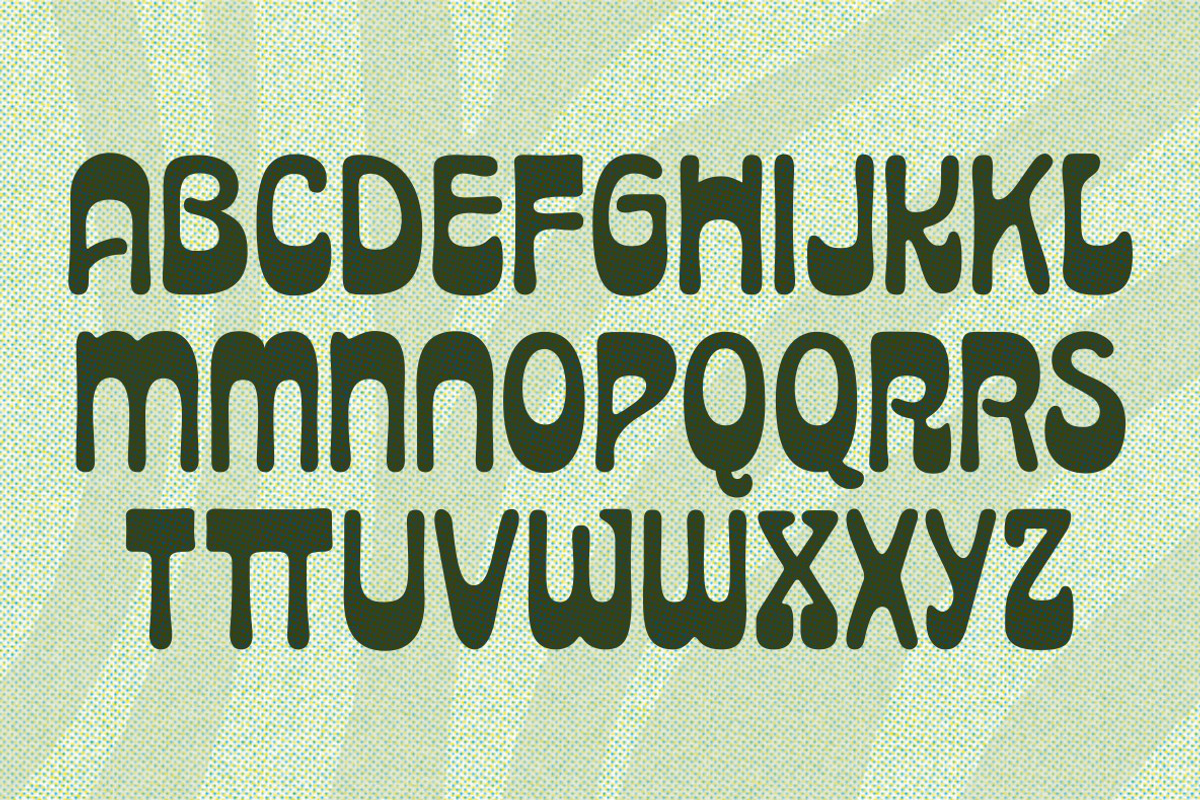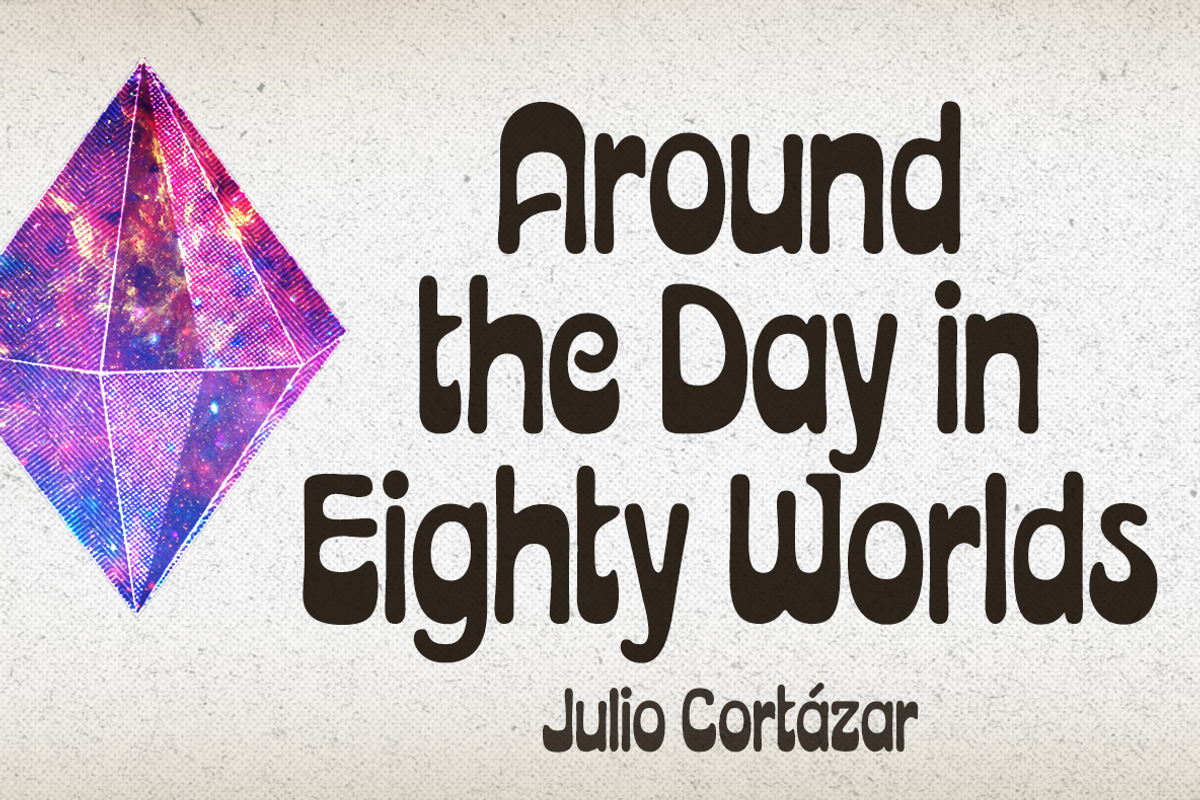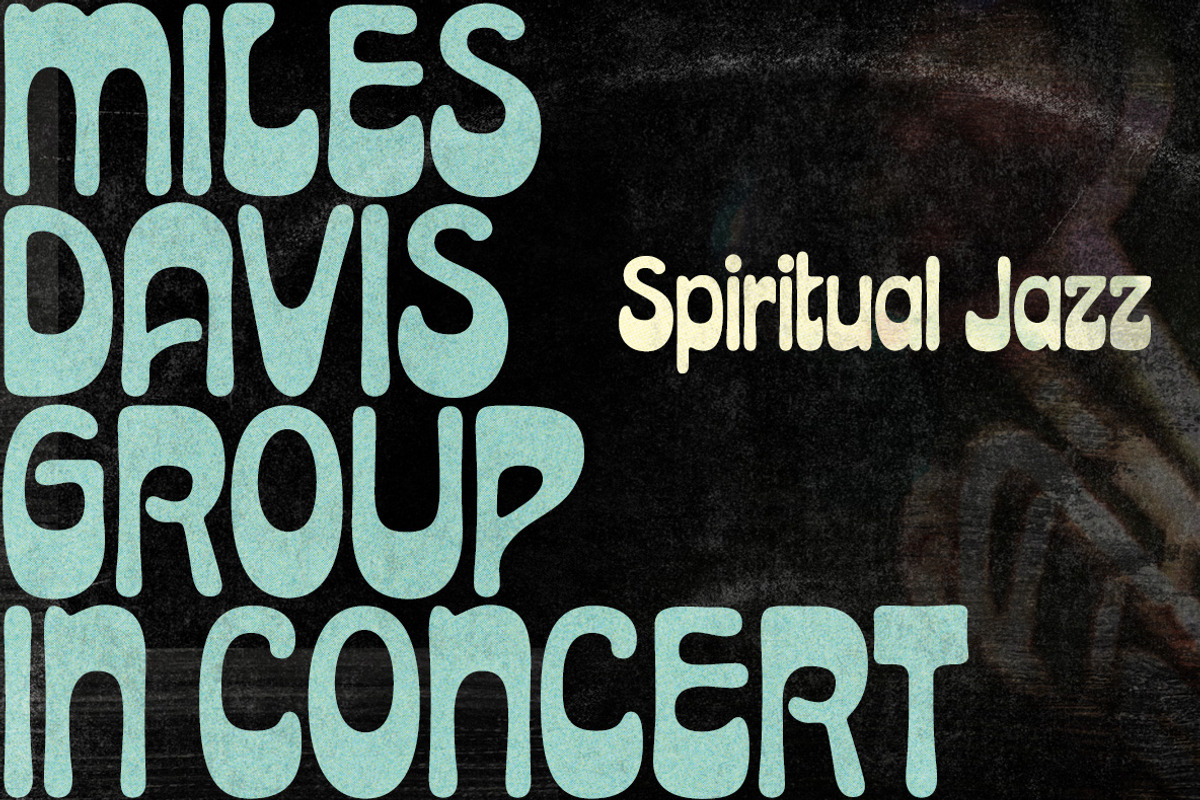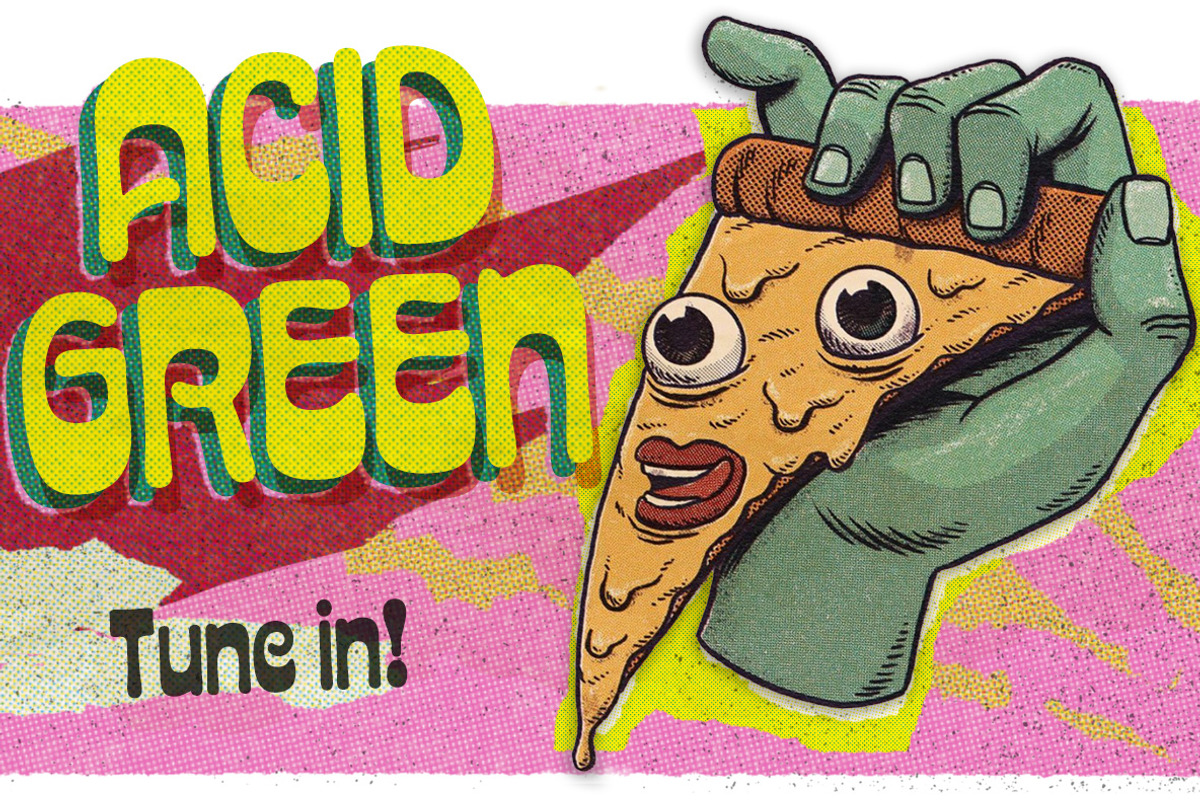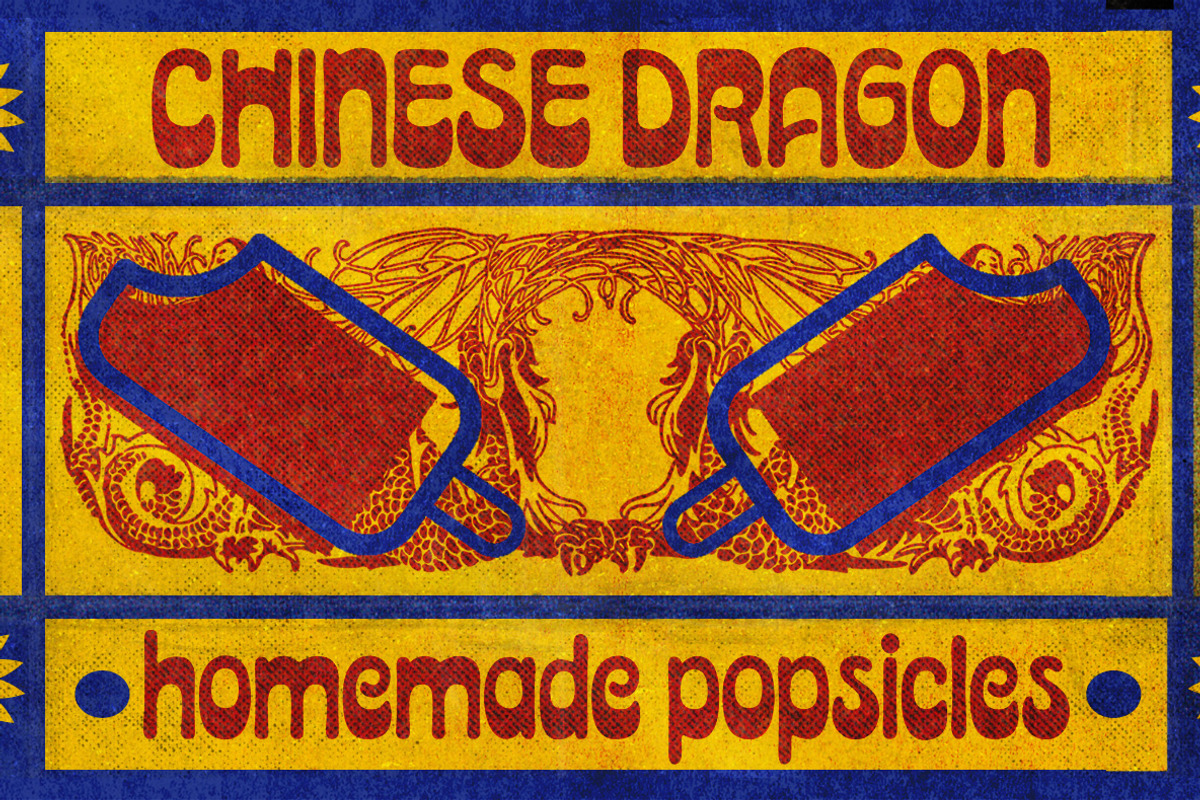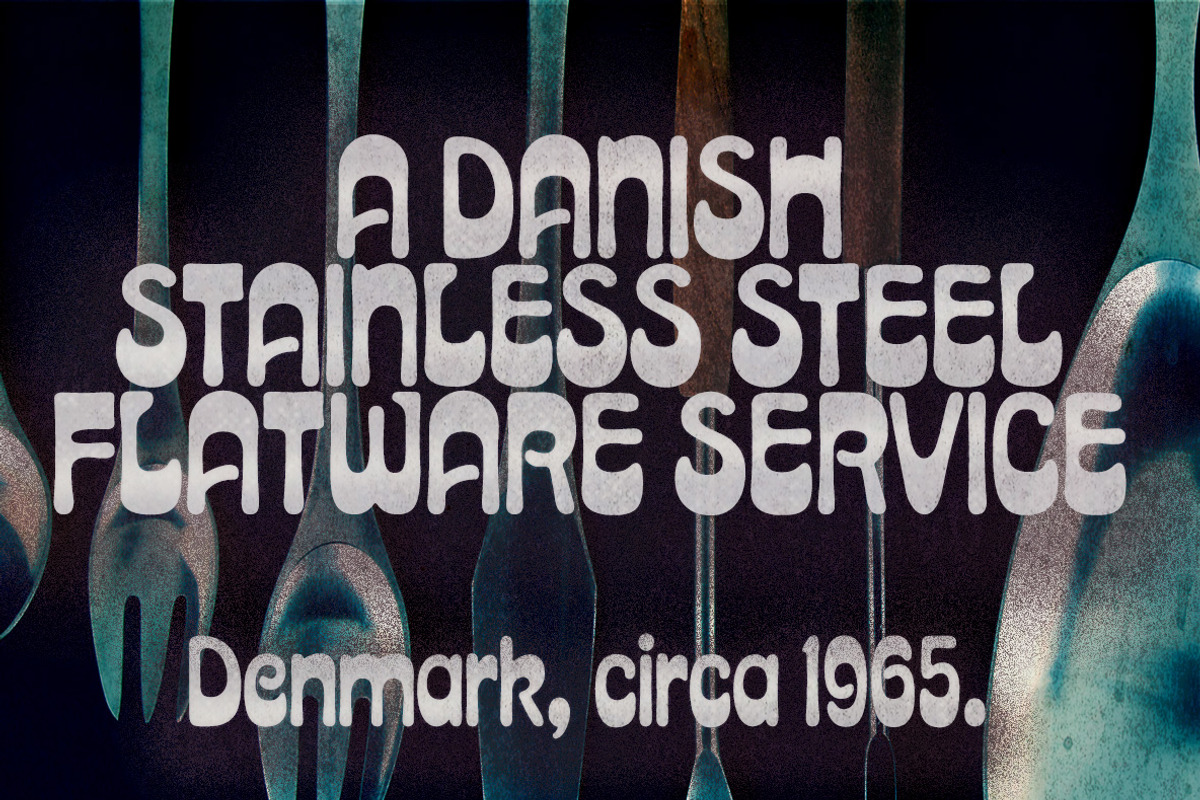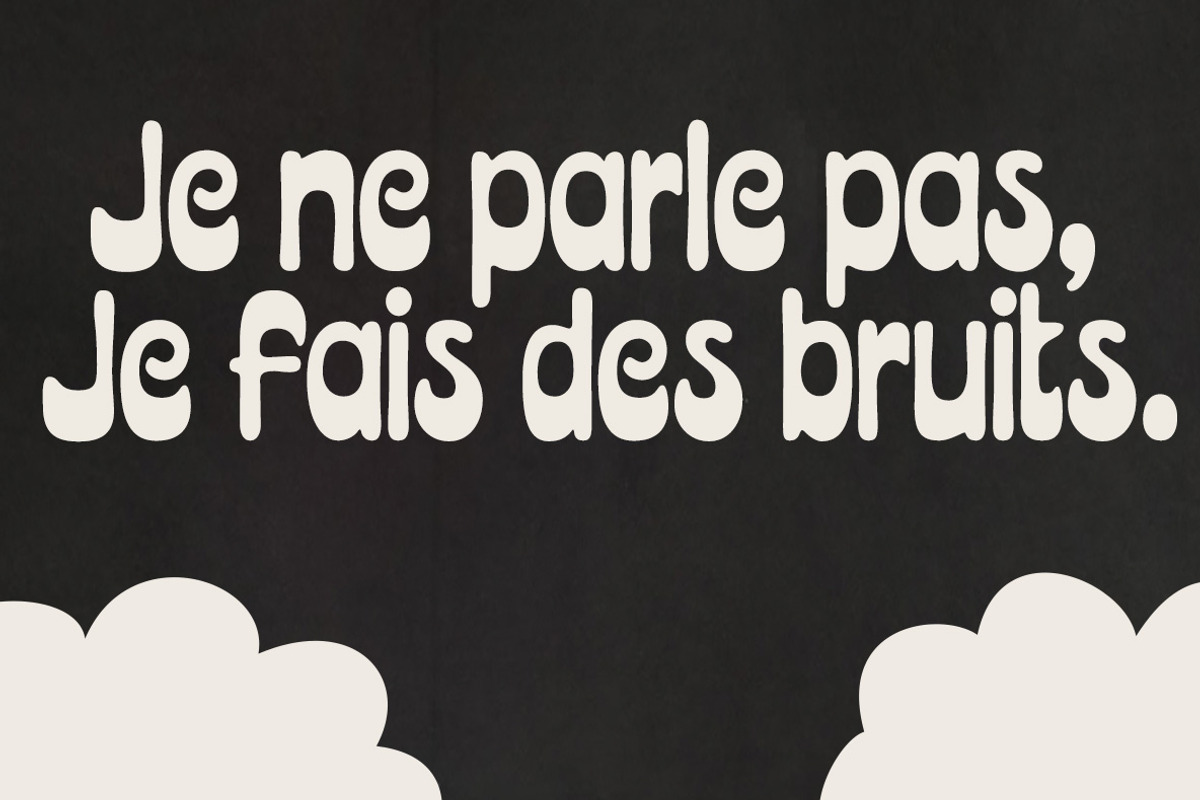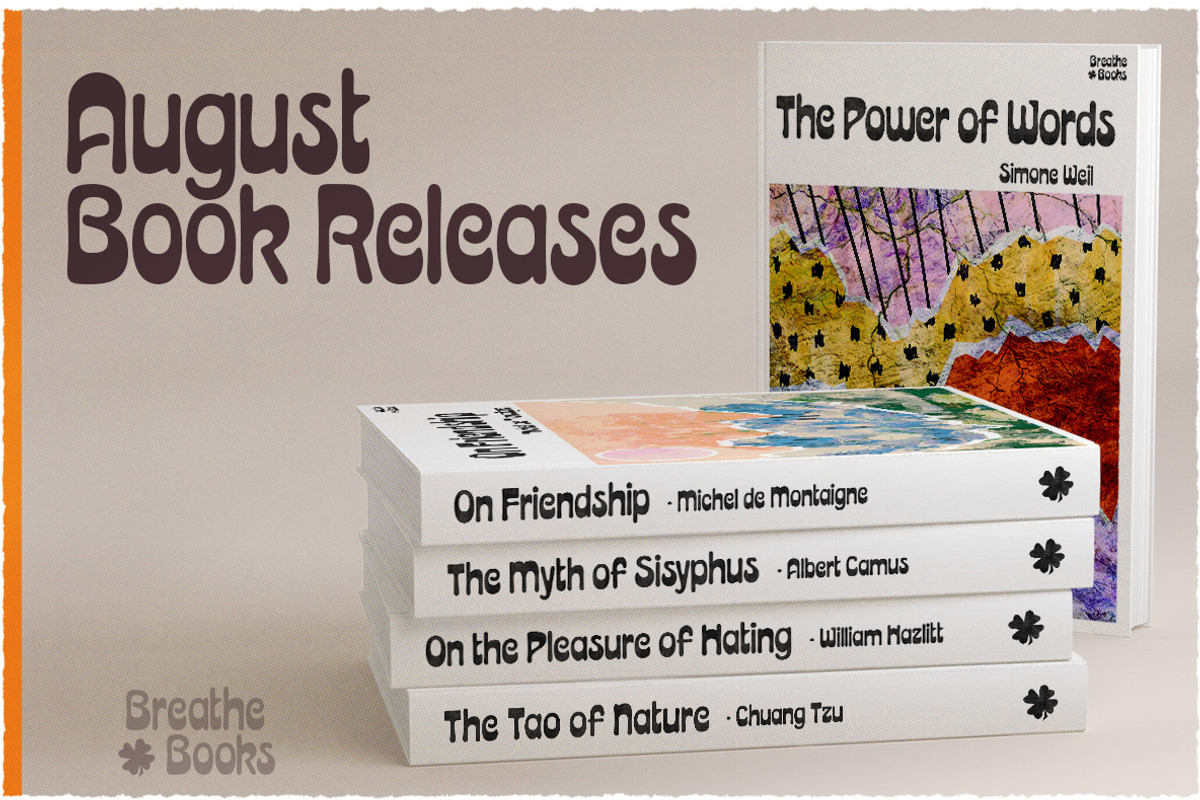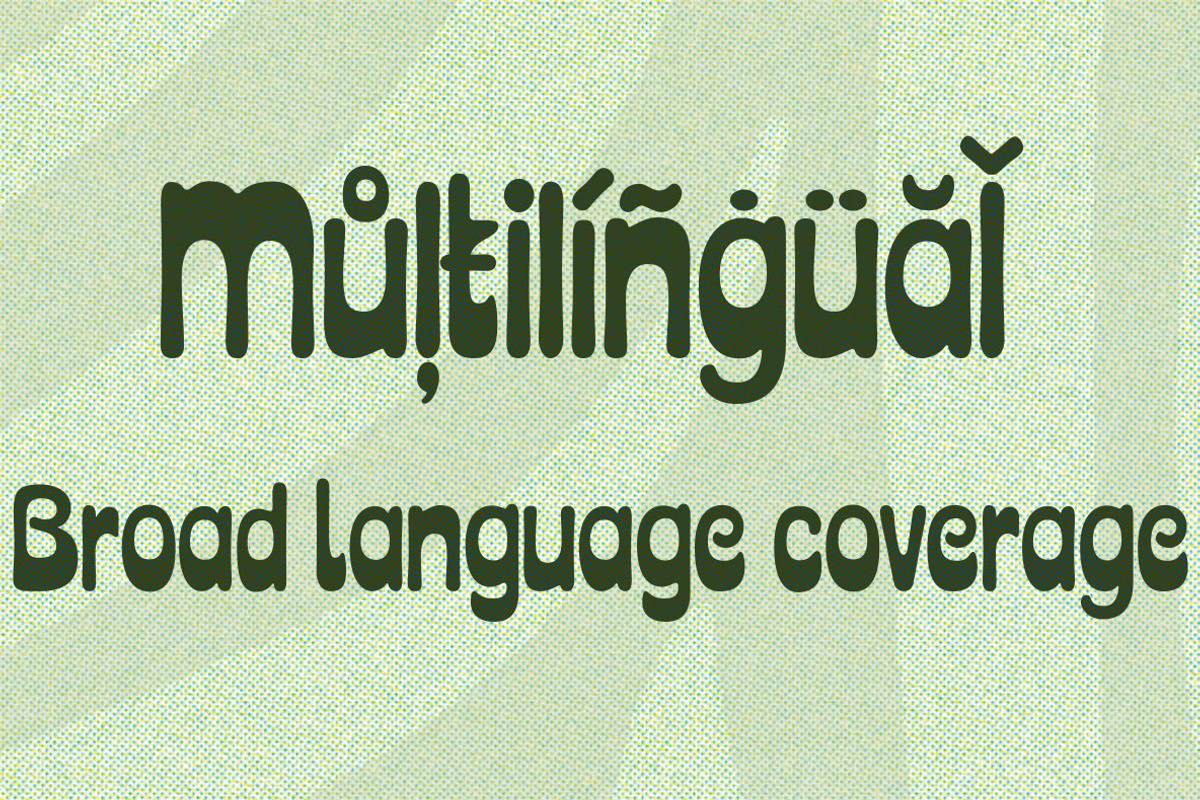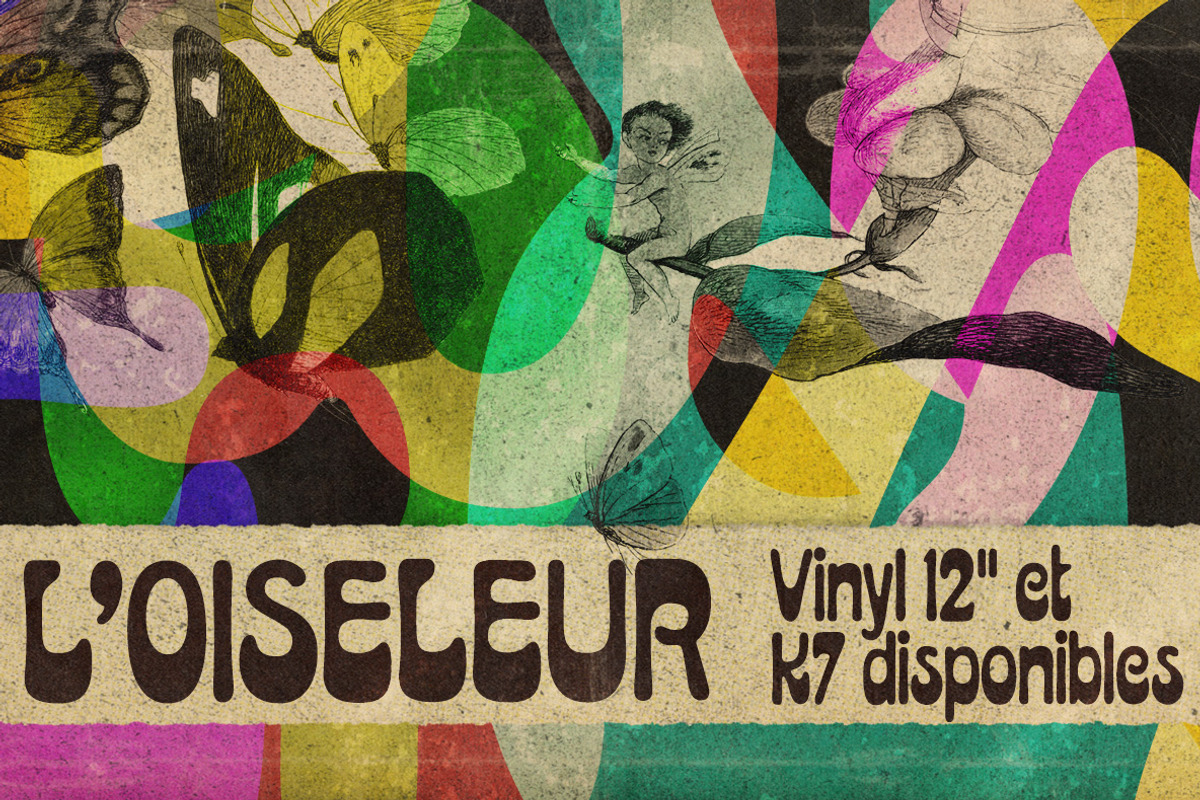
Acid Green | Retro Psychedelic Flair
Acid Green font has quite a psychedelic flair, but its origins are from long before the sixties psychedelia.
Its roots date back to 1914, from an unnamed alphabet by J.M. Bergling, the amazing jewelry engraver and 'letterform inventor'—as he considered himself—whose books of art alphabets and lettering influenced countless artists, including, not surprisingly, those involved with the genesis of Art Nouveau and Art Deco movements.
Perfect for multiple display uses, including retro designs and trippy letterings, Acid Green has an extensive character set, with multilingual support covering 208 languages. There are yet some handy stylistic alternatives for some extra grooviness.
Acid Green is somewhat retro looking, for sure, but it can sound perfectly contemporary too. Tune in and enjoy a creative trip!
LANGUAGE SUPPORT: Acid Green supports 208 languages, including Bosnian, Czech, Danish, Dutch, English, Estonian, Finnish, French, Galician, German, Hawaiian, Hungarian, Icelandic, Indonesian, Italian, Norwegian, Polish, Portuguese, Romanian, Spanish, Swedish, Turkish, Xavante.